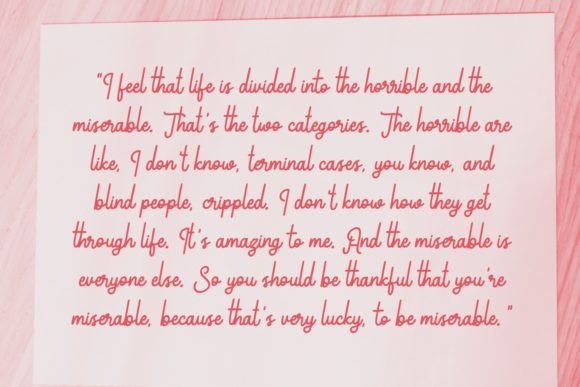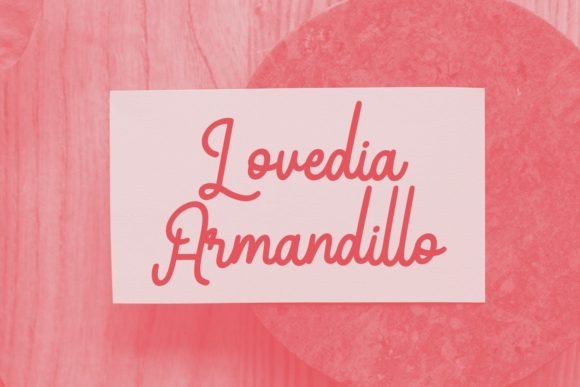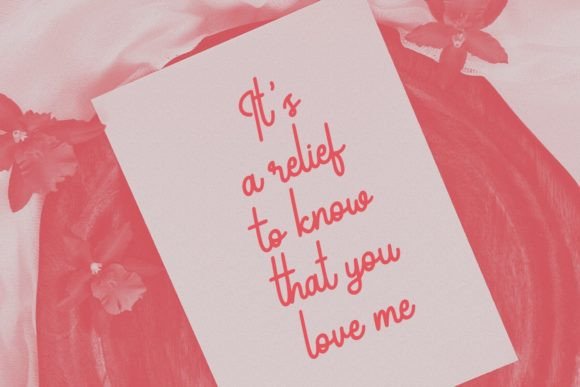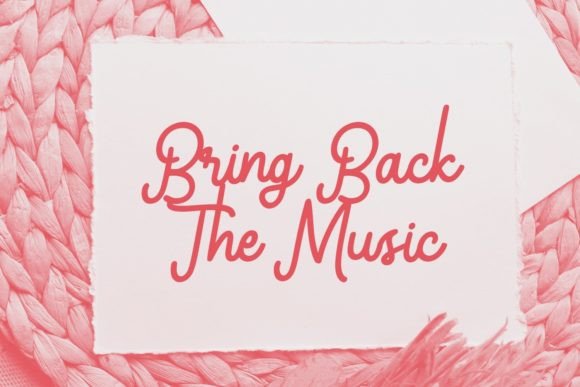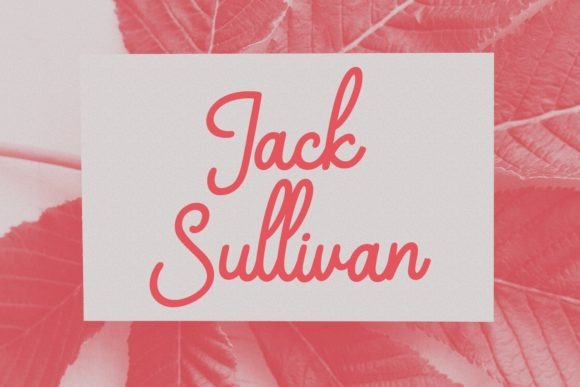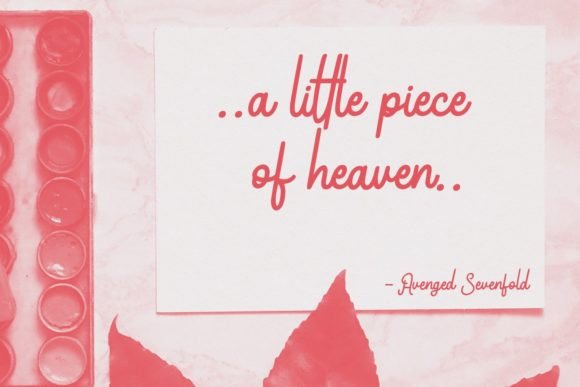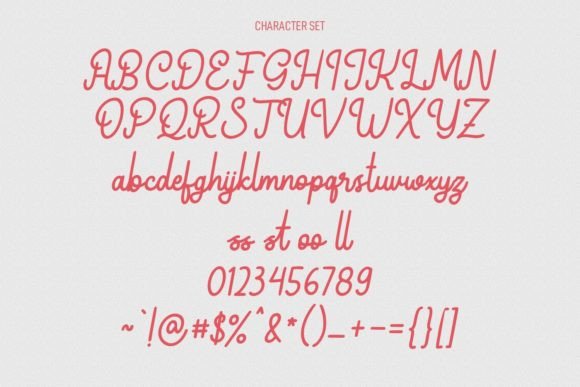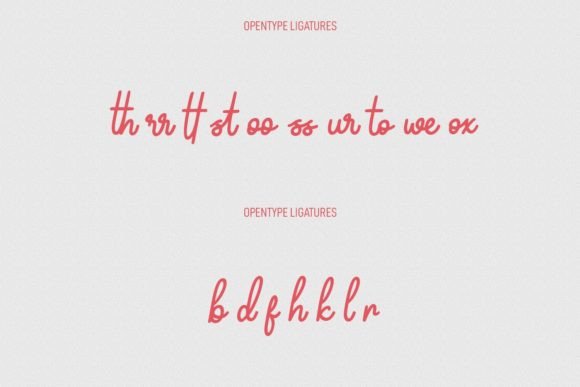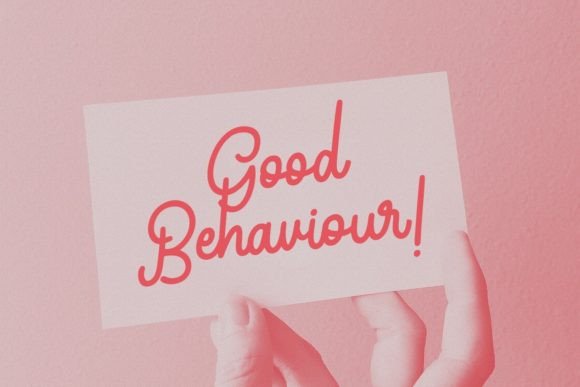
Yearlys Font
About Yearlys Font
Yearlys is a casual retro script font that captures the essence of vintage design. Its relaxed and nostalgic style adds a special touch of retro charm to any creative project you have in mind. Whether you’re working on posters, banners, packaging, apparel designs, logos, or any other design idea, Yearlys infuses your creations with a unique vintage vibe.
The font’s casual and handwritten appearance gives it an approachable and laid-back feel, making it perfect for projects that require a touch of nostalgia. Its retro script design evokes a sense of the past, bringing a feeling of authenticity and character to your designs. With Yearlys, you can create designs that transport your audience to a bygone era, capturing the spirit of vintage aesthetics.
One of the standout features of Yearlys is its ability to add a special vintage touch to any design. Its distinctive letterforms and retro style make it a valuable asset for designers looking to create visually appealing and memorable designs with a nostalgic twist. Whether you’re designing event invitations, crafting retro-themed branding, or working on any other creative endeavor, Yearlys enhances the overall aesthetic with its casual retro charm.
Incorporating Yearlys into your projects not only adds a vintage touch but also showcases your appreciation for classic design elements. Its retro script font style makes it a popular choice among designers who want to capture the essence of a particular era or create designs that evoke a sense of nostalgia. By choosing Yearlys, you’re selecting a font that brings a touch of vintage authenticity to your creative ideas.
So, whether you’re designing retro posters that capture the spirit of the past, creating vintage-inspired packaging for a product, crafting a nostalgic logo, or working on any other creative endeavor, let Yearlys be your font of choice. Its casual retro script design allows you to add that special vintage touch to your designs, making them stand out with a sense of timeless style and character. Embrace the retro charm of Yearlys and watch your projects come to life with a touch of vintage magic.